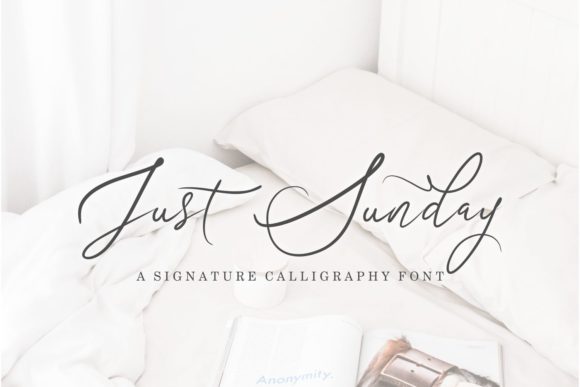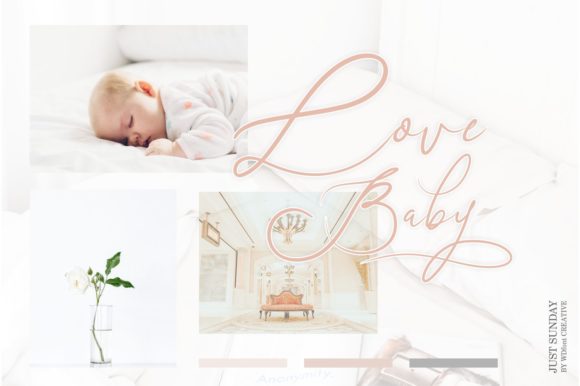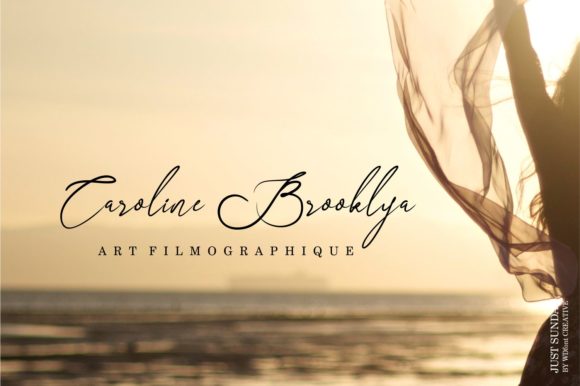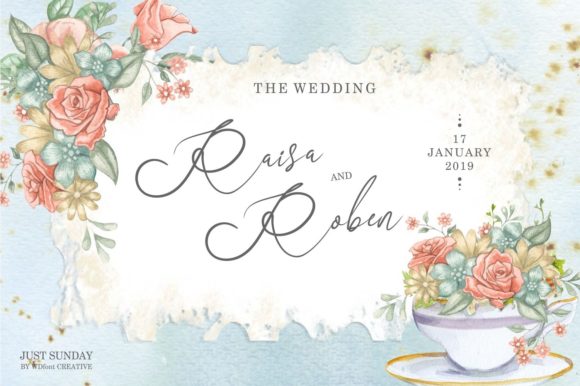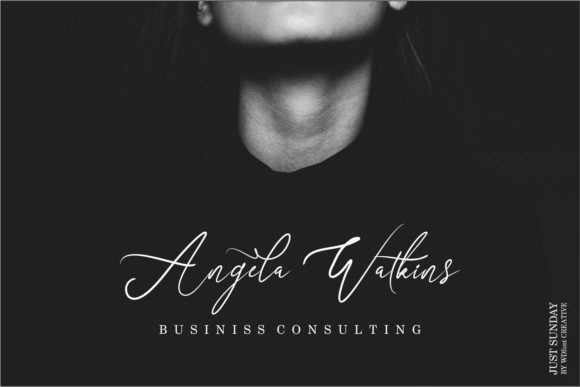
Just Sunday Font
The Just Sunday is a fun script font. It has a smooth, handwritten style, which is perfect for branding projects, product packaging, and more!
It can be used simply as a stylish text overlay to any background image, or anything requiring a sprinkle of elegance!